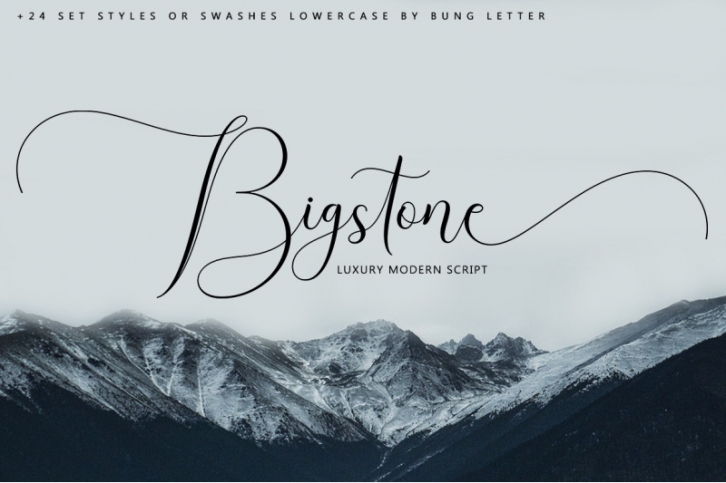
Bigstone is one of the modern calligraphy script fonts that comes with exquisite character changes, a kind of classic copper decorative script with a modern twist, designed with high detail to present a luxurious style.
Bigstone is interesting because the typeface is pleasing to the eye, clean, feminine, sensual, glamorous, simple and very easy to read, because there are many fancy letter connections.
Bigstone includes a full set of beautiful upper and lowercase letters, numbers, various punctuation marks, ligatures and multilingual. All lowercase letters include the beginning and end of the swash, giving it a luxurious handwriting style. Classic styles are very suitable to be applied in various formal forms such as invitations, labels, restaurant menus, logos, fashion, make up, stationery, novels, magazines, books, greeting / wedding cards, packaging, labels or all kinds of your goals .... .